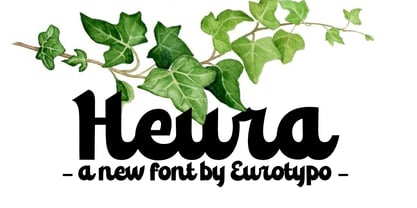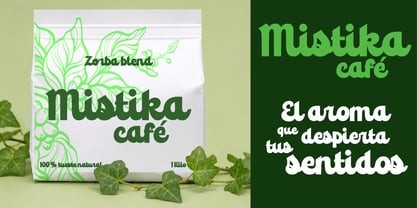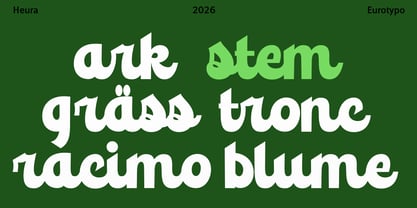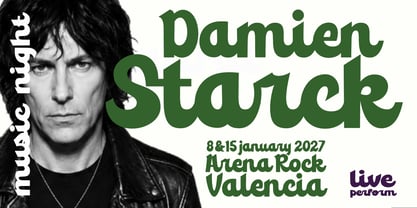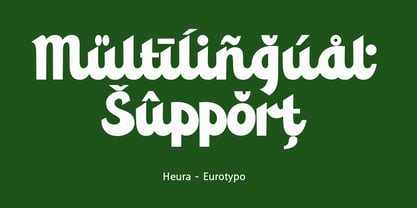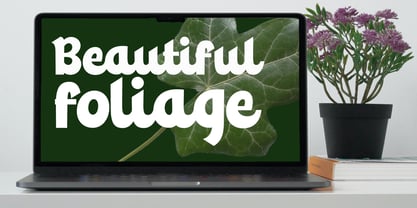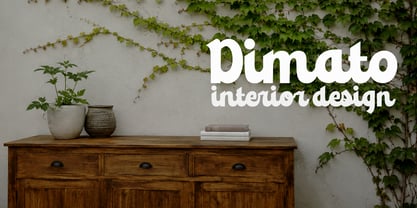
Heura
by Eurotypo
The Heura Font Family was designed by Carine de Wandeleer and published by Eurotypo. Heura contains 1 styles. More about this family
Elevate your brand or text with Heura, a distinctive typeface launched in 2016 by Eurotypo studio. Drawing organic inspiration from nature, Heura features bold, robust, and fluid strokes that embody a botanical spirit. Its thick forms reflect the whimsical energy of vines, while the smooth curves and asymmetrical cuts evoke the essence of leaves, stems, and buds, creating a natural, approachable, and dynamic rhythm in every word. Heura guarantees visual impact with its bold weight and assertive script style, ensuring your headlines and logos stand out. This font makes a powerful statement, exuding warmth and authenticity with its "handmade" yet professional appearance, breaking away from the coldness of traditional typefaces to forge an emotional connection with viewers. With Heura, your messages transform from mere text into a vibrant ecosystem of creativity. Give your next project a strong foundation and let your ideas flourish with this captivating typography. Dare to design with Heura.
Designers: Carine de Wandeleer
Foundry: Eurotypo